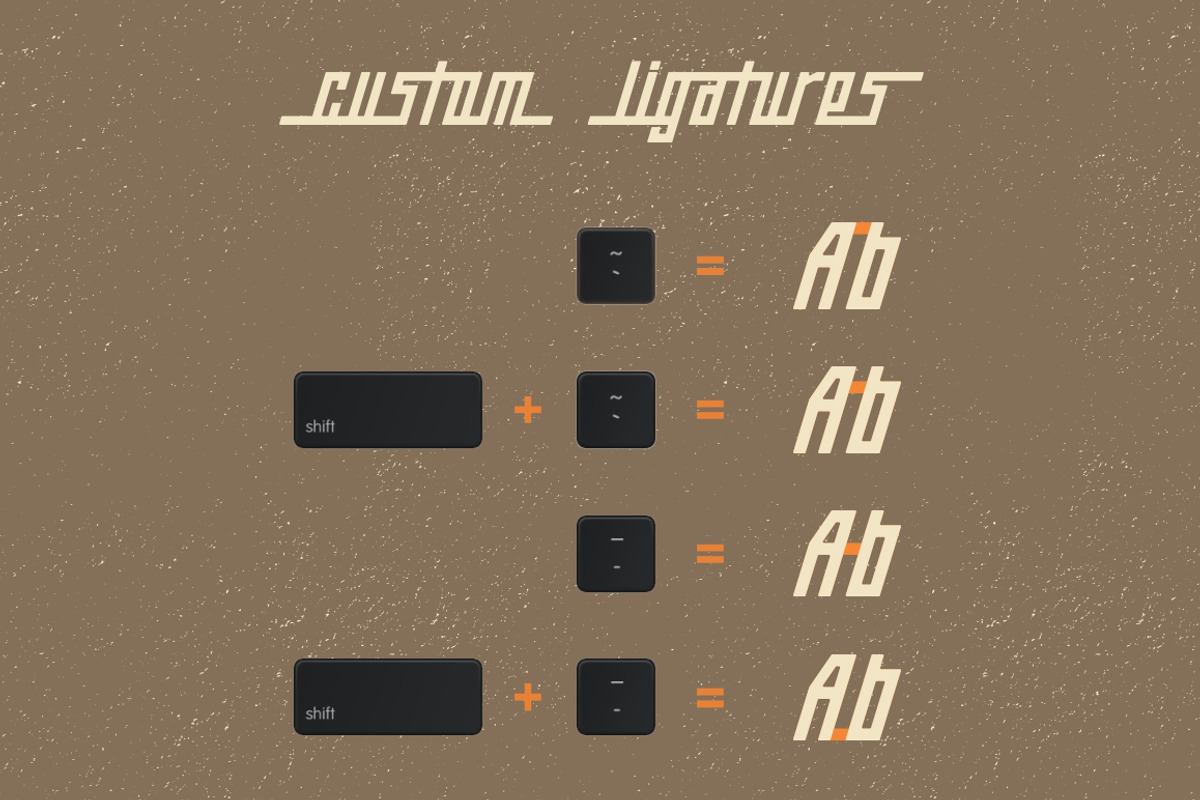
Monogram Typeface
Monogram Typeface by Monogram is a font selected for branding, posters, packaging, typography.
- It features 4 custom ligatures that will help you create nice compositions & get unique results.
Why Monogram Typeface is worth a look
Monogram Typeface by Monogram fits naturally into Branding, posters, packaging, typography.